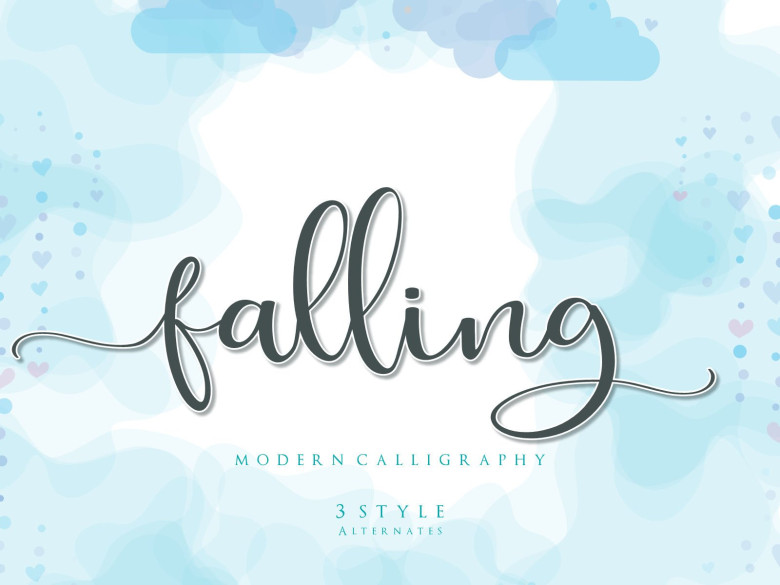
Falling Modern Calligraphy Font
Introducing Falling Font is a modern calligraphy typeface. This font was designed by handwriting, and it has a modern and unique forms of calligraphy, the writing style is very natural. It has a classy, elegant, and modern look which can be used for logos, branding, invitations, stationary, wedding designs, social media posts, and every other design which needs a handwritten touch.